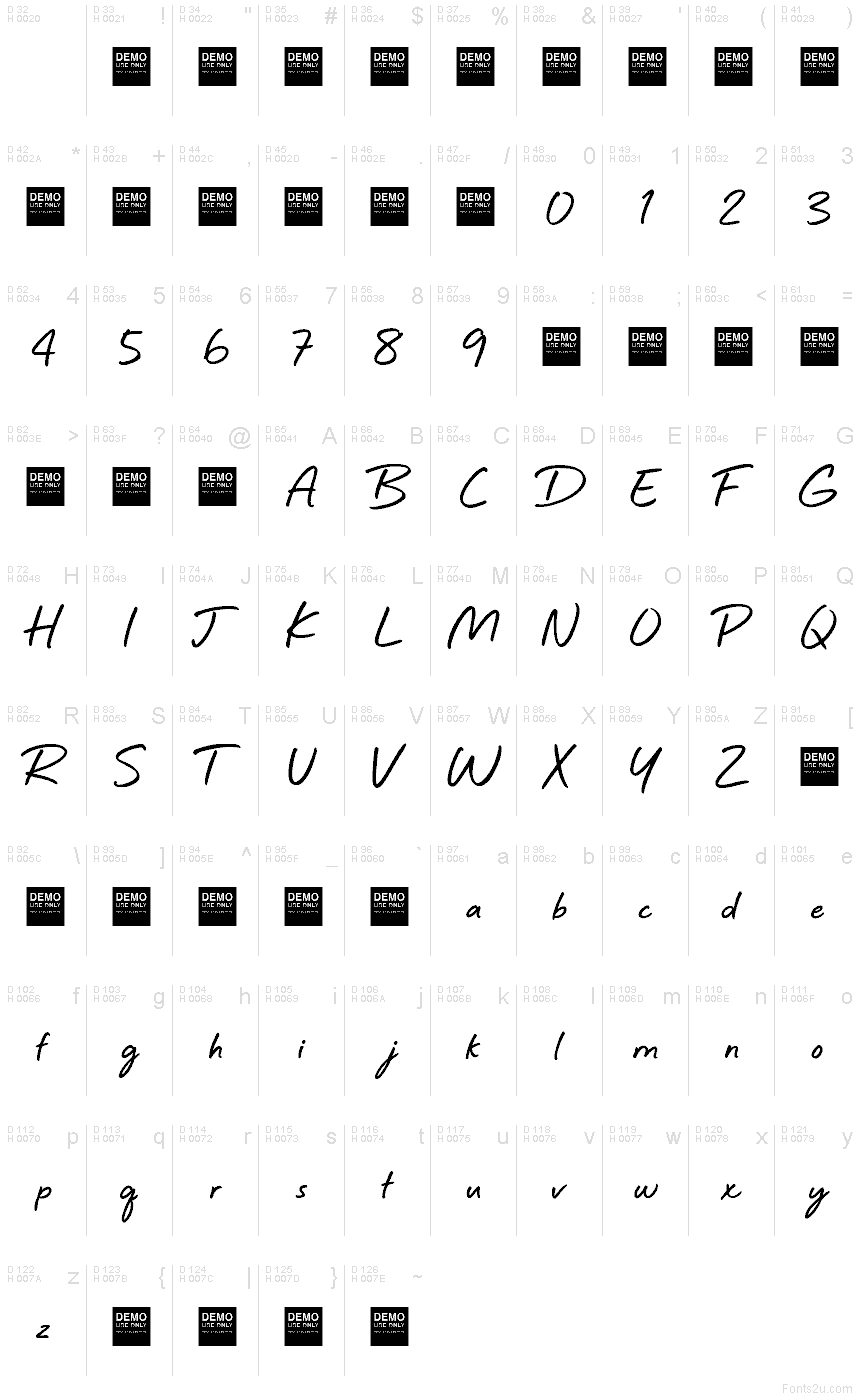
Dream Weaver
Dream Weaver font is a free handwritten font by BLKBK Fonts with smooth, elegant, and flowing elements. It has expressive glyphs that perfectly combine contemporary script styles and casual charm. This font ideal weaves its letters like a dream in whatever project you work on!
Use this font in branding projects like typography logos, labels for cosmetics, book covers, product packaging, headings, posters, and flyer titles or inside magazine pages. Its lovely seamless letters look great on websites; displayed as quotes; or printed on t-shirts, cards & invitations.